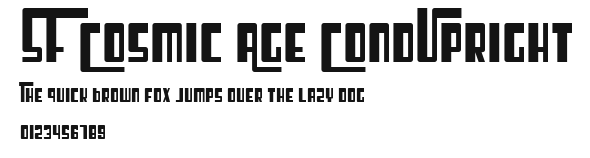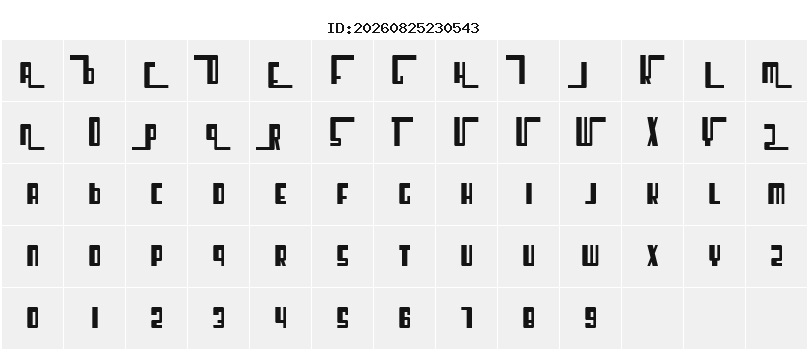
• Font Name: SF Cosmic Age CondUpright
• Font ID: SF Cosmic Age CondUpright
• Full Font Name: SF Cosmic Age CondUpright
• Version: 1.2
• PostScript Name: SFCosmicAgeCondUpright
• Character Count: 106
About SF Cosmic Age CondUpright.ttf
SF Cosmic Age CondUpright.ttf is a modern, elegant sans-serif font designed for ultimate readability and visual harmony. Perfect for branding, headlines, web design, and print materials.